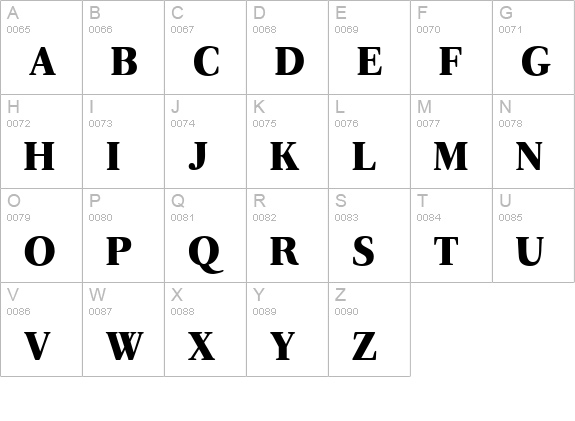
Q650-Roman-Bold Font Details
Q650-Roman-Bold is a strong, high-contrast variant in the Q650 typeface family \xE2\x80\x94 well suited to headlines, attention-grabbing titles, and strong calls-to-action.
Q650-Roman-Bold is a striking and bold font that exudes a sense of strength and elegance. Its clean lines and thick strokes make it perfect for headlines, titles, and other attention-grabbing text. The bold weight of this font ensures that your message will stand out and make a lasting impression on your audience. What's even better is that Q650-Roman-Bold is available for free download at FontsMarket.com. This means you can easily access this stylish and versatile font to enhance your design projects without any cost. Whether you're working on a branding project, website design, or any other creative endeavor, Q650-Roman-Bold is a great choice to add a touch of sophistication and impact to your work. Download it now and elevate your designs with this eye-catching and versatile font.